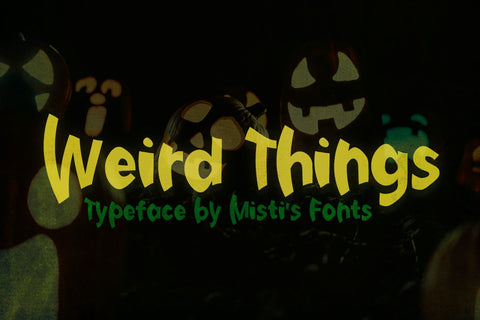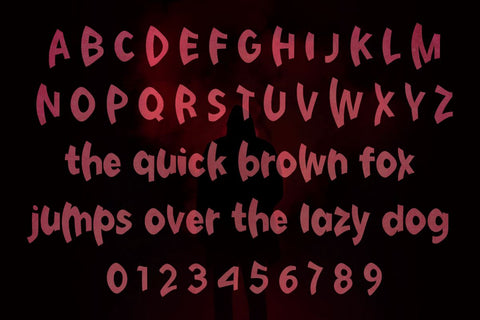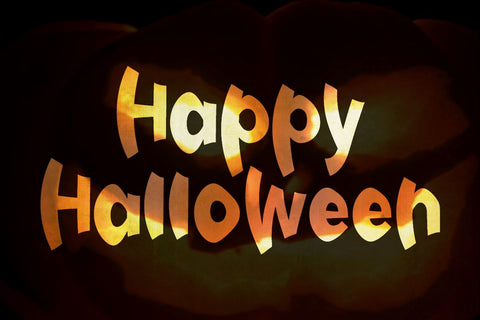
Weird Things
Introducing Weird Things – a unique, funky typeface that adds a quirky twist to your designs. Perfect for Halloween, it brings a spooky, playful vibe to invitations, posters, and more. Stand out with its bold, offbeat style! Let the weirdness begin!
- Misti's Fonts ,